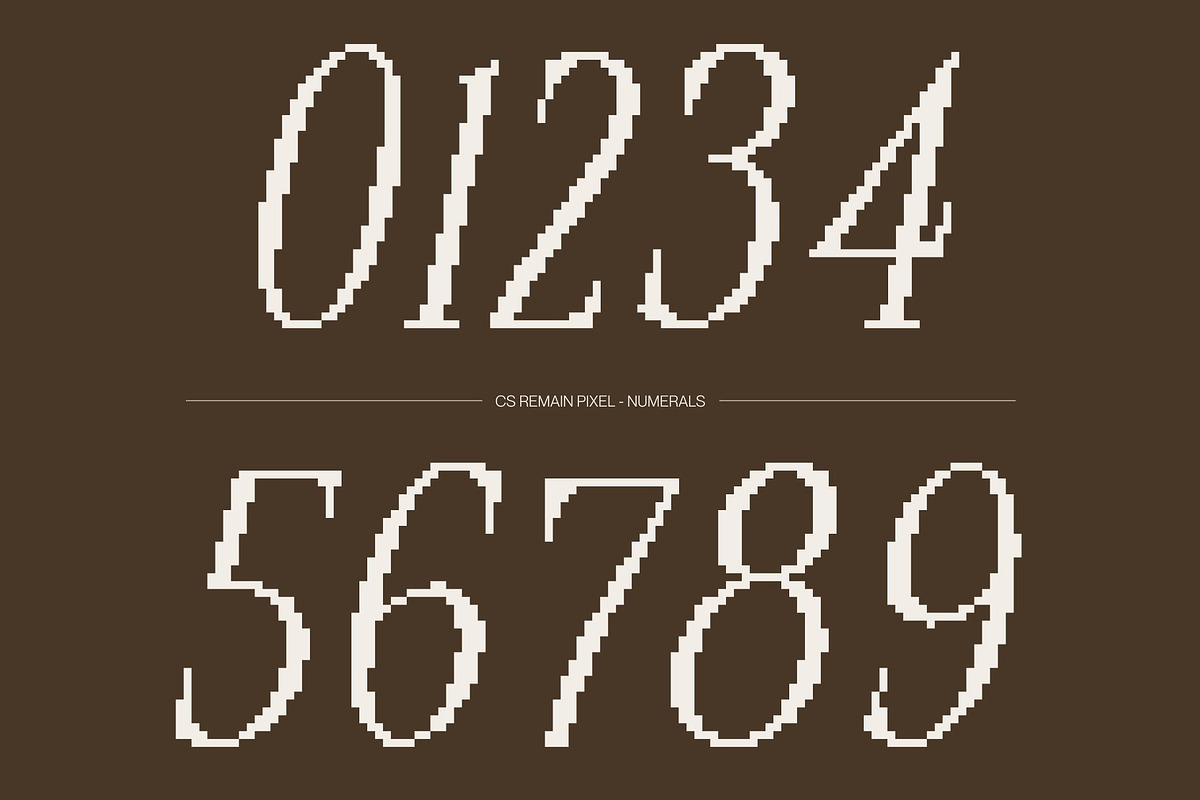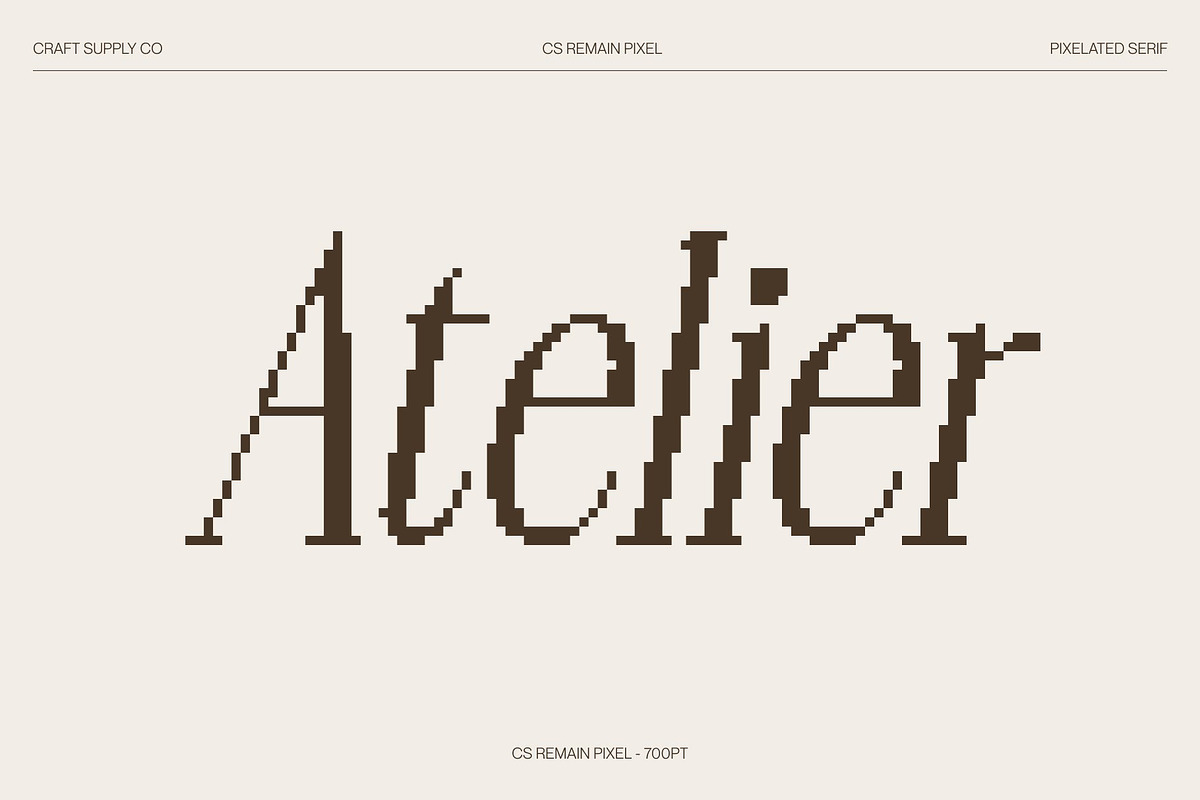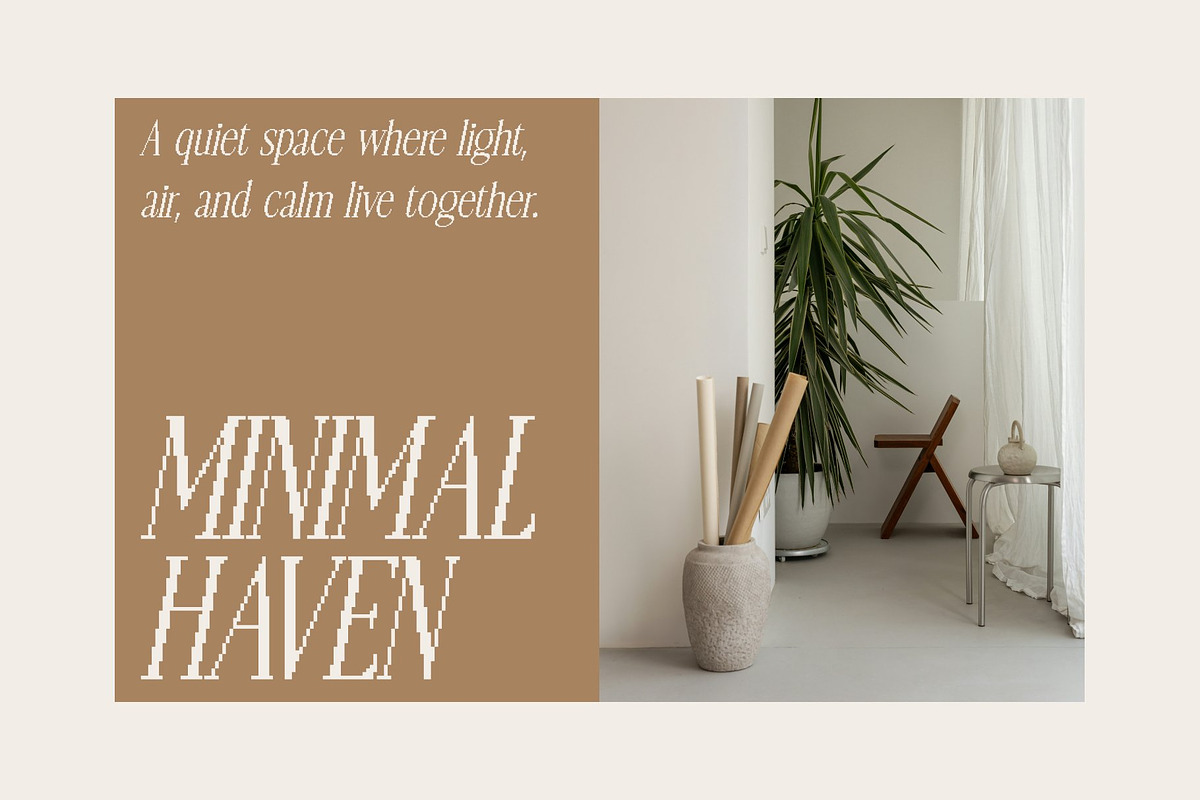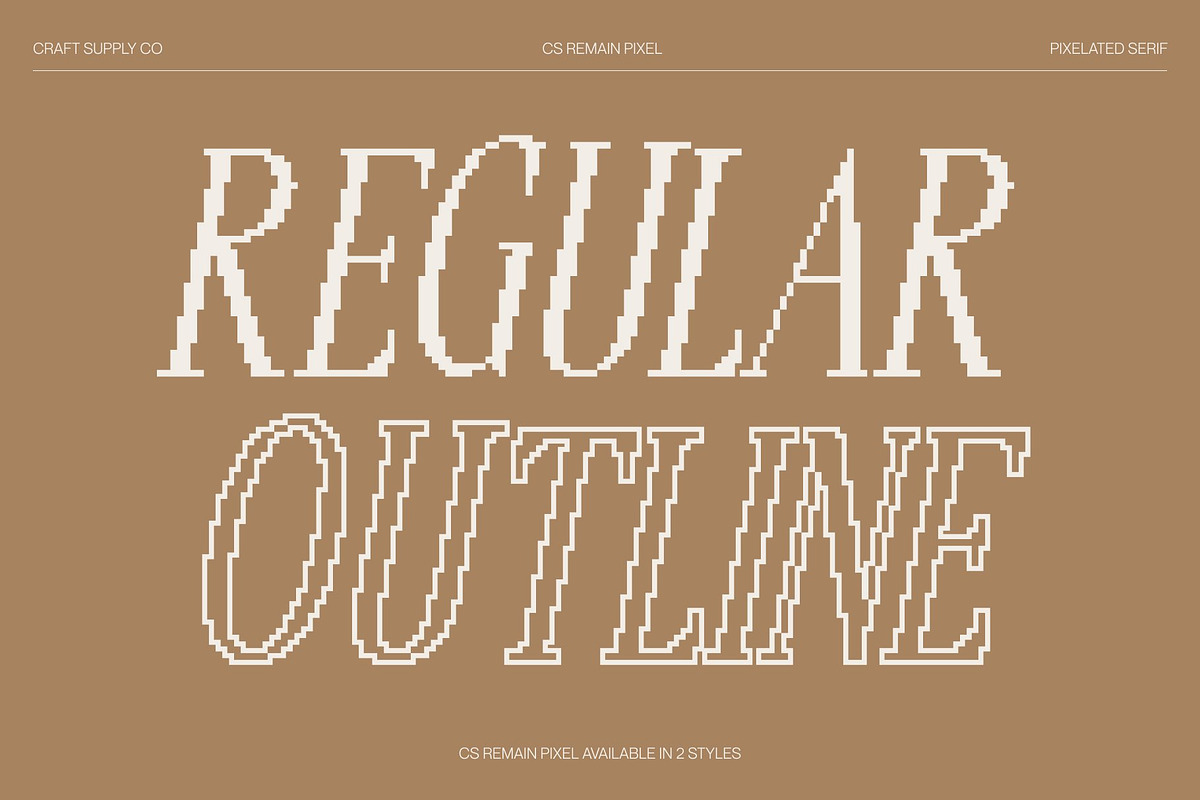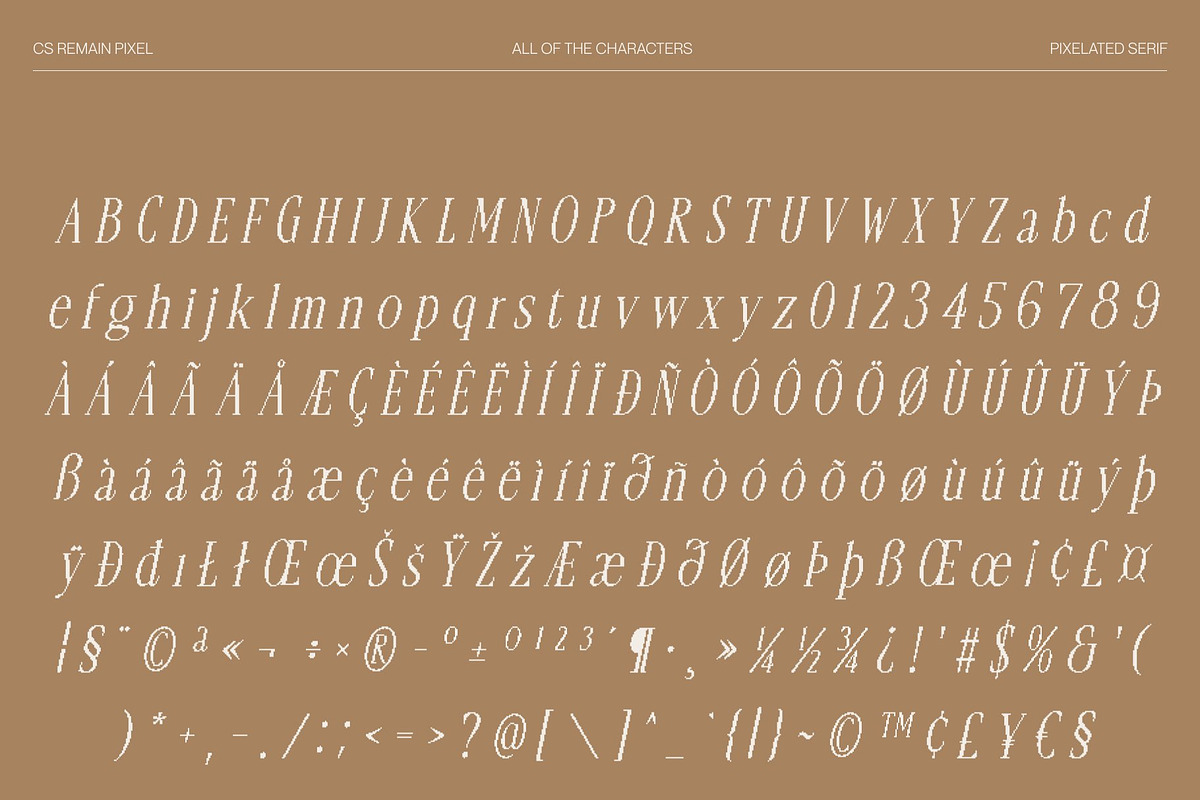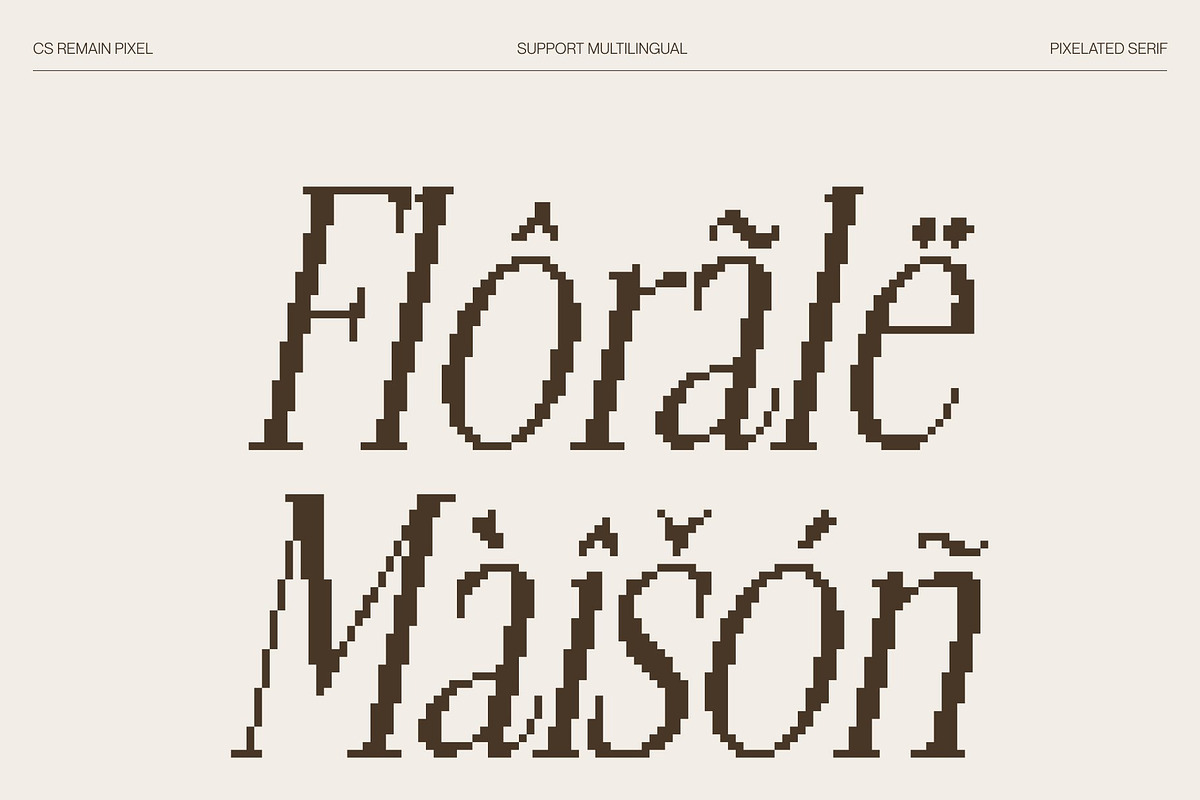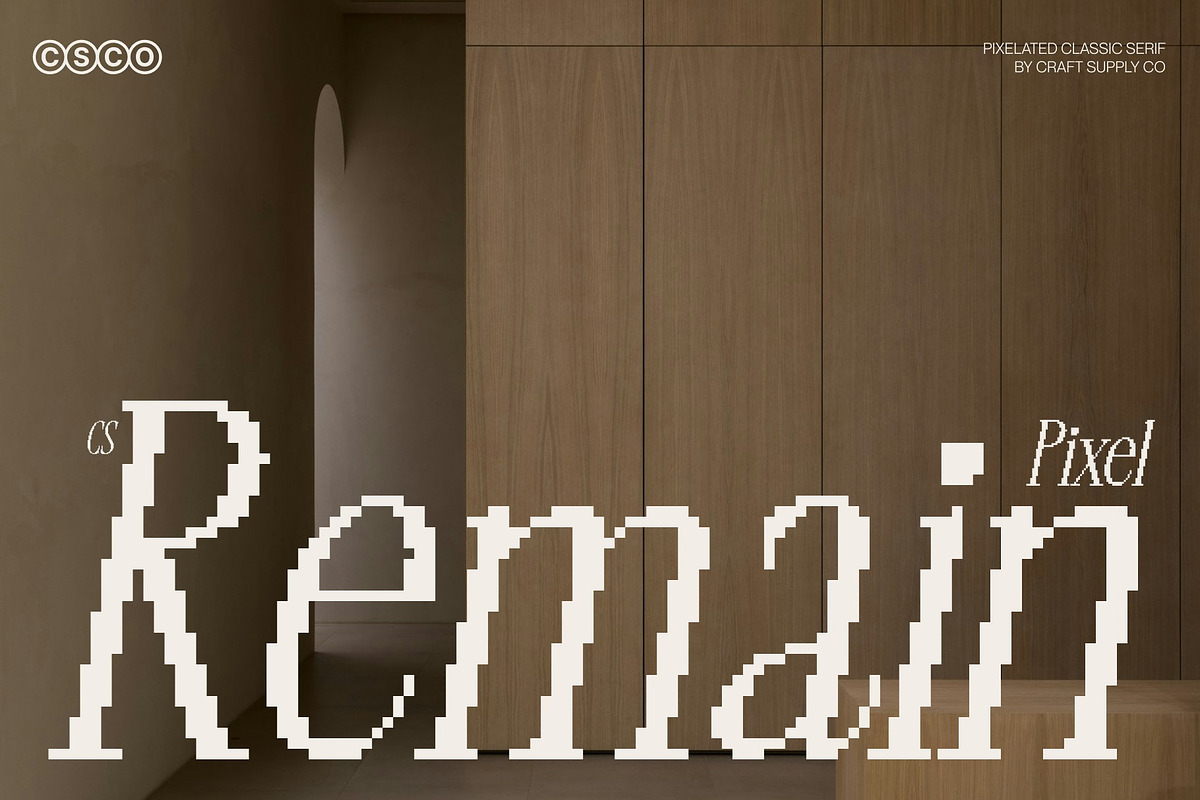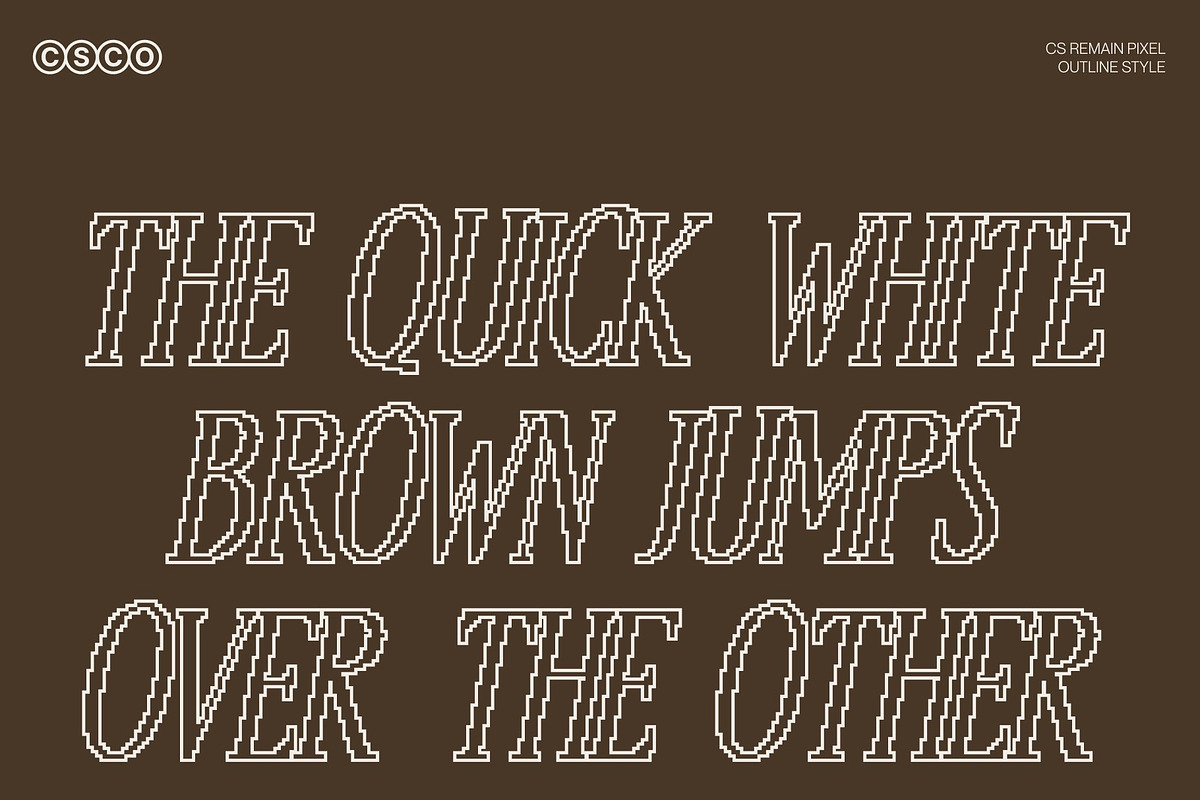
CS Remain Pixel
CS Remain Pixel – Modern Classic Elegance with Contemporary Appeal
Modern Classic Serif with Refined Pixel Character This is a modern classic serif font that blends timeless elegance with clean contemporary design, reimagined through a subtle pixel aesthetic. Its carefully structured letterforms and balanced proportions create a sophisticated presence, while the pixel construction adds a distinctive digital texture. The result feels familiar yet fresh classic refinement with a modern, tech-inspired edge.
Clean Design with Contemporary Pixel Sophistication The clean construction enhances clarity and readability, while smooth curves, controlled contrast, and precise pixel details give the font a modern digital rhythm. This fusion preserves the elegance of a classic serif while introducing a structured, eye-catching character that feels perfectly suited for digital and retro-influenced environments.
Timeless Style with a Digital Soul This font carries a quiet confidence that stands out without overpowering the composition. Its modern classic tone adapts effortlessly across design contexts, while the pixel styling adds personality and visual intrigue. The font communicates sophistication, creativity, and technological awareness in equal measure.
Ideal for Luxury Branding, Editorials, and Retro-Modern Creative Projects Designed for premium and expressive use, this font is ideal for luxury branding, editorials, posters, packaging, and creative projects that demand elegance with a contemporary twist. Its refined serif form combined with pixel precision enhances headlines, brand identities, and visual storytelling making it perfect for modern digital design and old-technology inspired aesthetics.
- CS Remain Pixel Regular
- CS Remain Pixel Outline